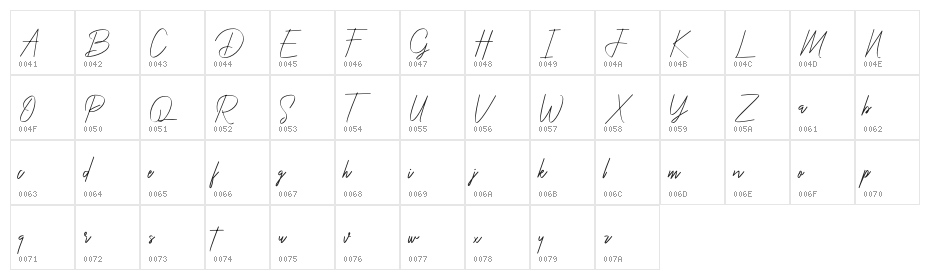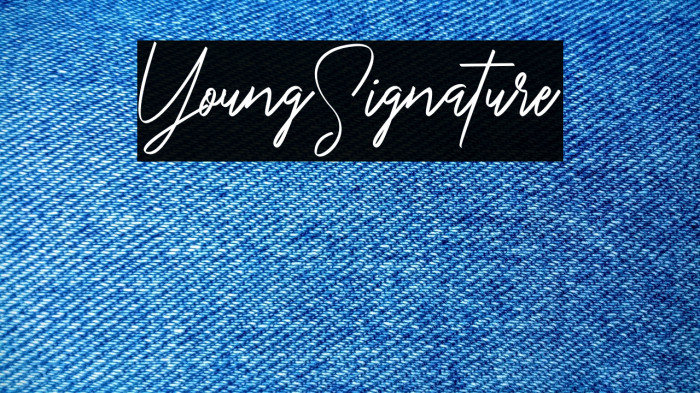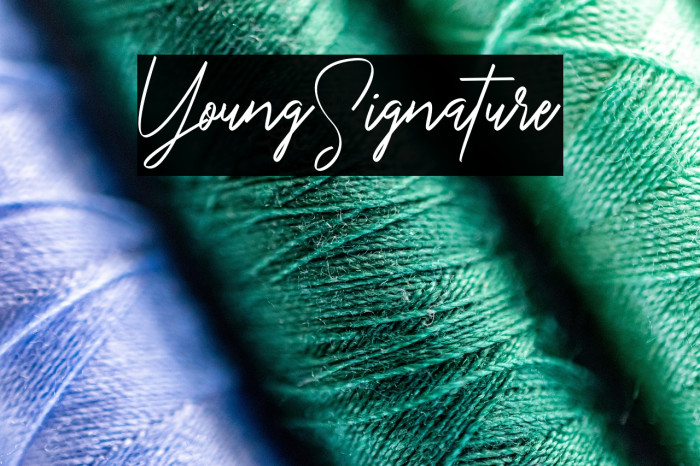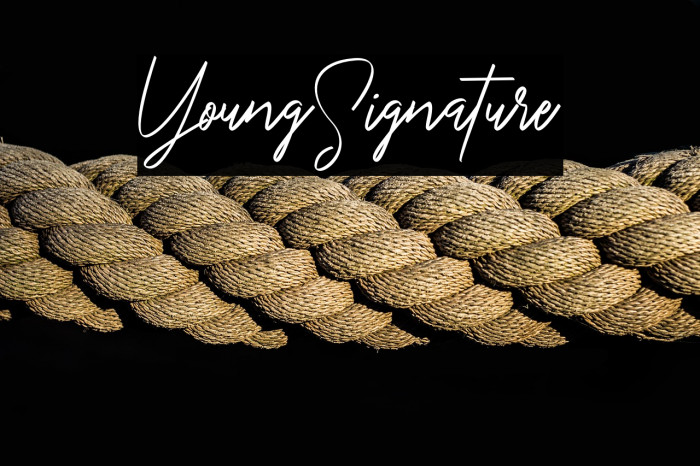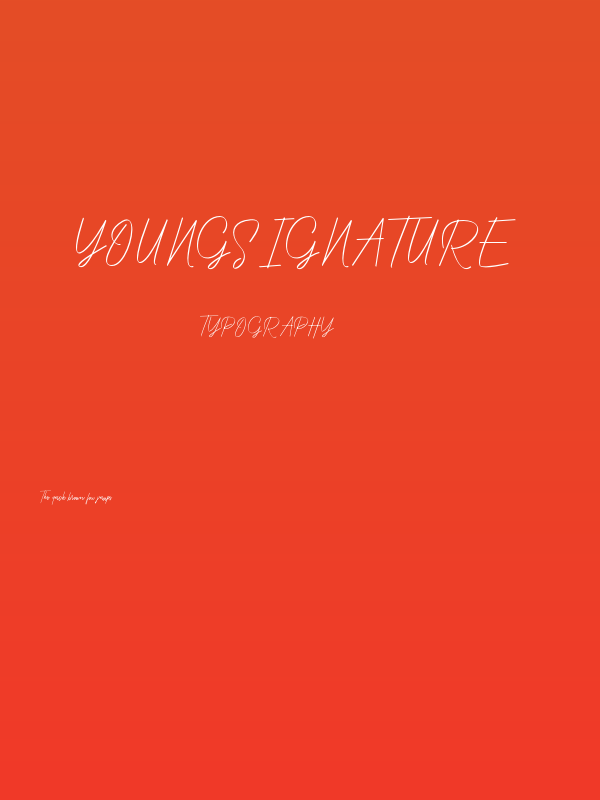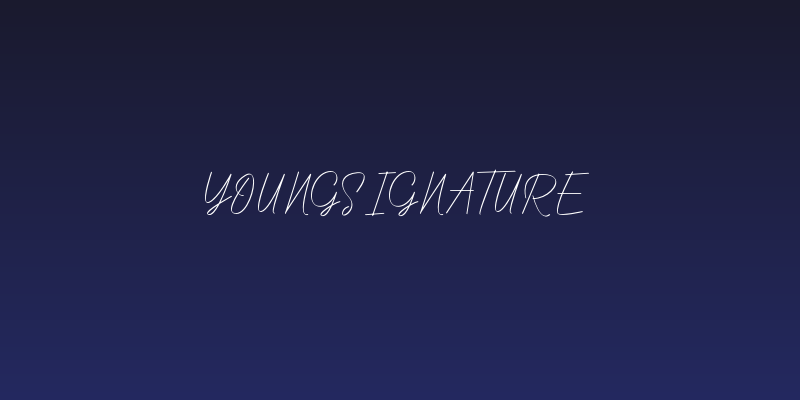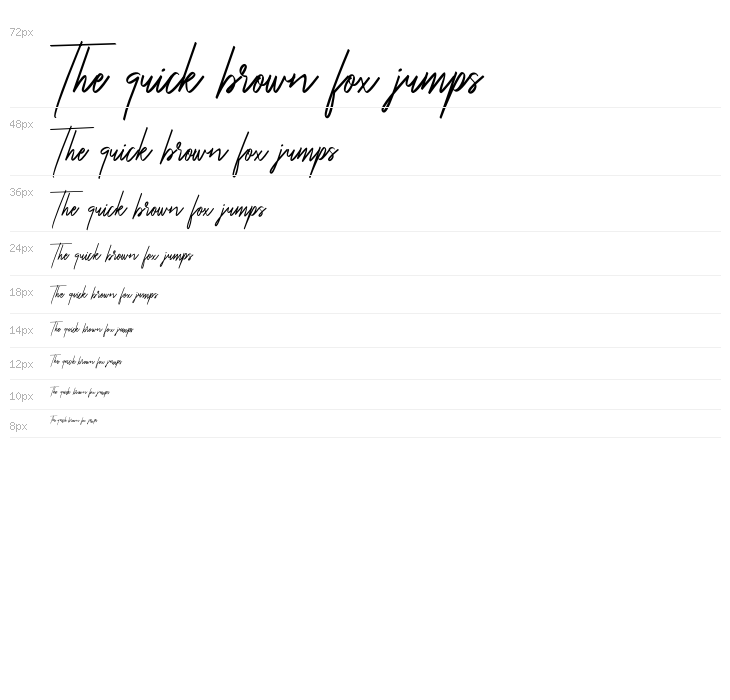
YoungSignature Font
YoungSignature Description
This font exudes a modern, handwritten style with a touch of elegance and fluidity. The uppercase letters are elongated and slightly slanted, giving a sense of movement and grace. The lowercase letters maintain a consistent flow, with smooth curves and a natural, cursive appearance. The overall design is clean and sophisticated, making it suitable for projects that require a personal touch. The absence of special characters suggests a focus on simplicity and clarity, enhancing its appeal for creative and artistic uses.
| Proposed Projects | Ideal for personal branding, wedding invitations, and artistic projects requiring a personal touch. |